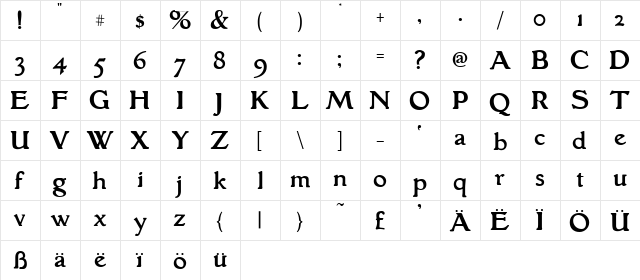
Grantham Roman
Design Context for Grantham Typeface
Grantham offers clean, dependable letterforms without strong stylistic allegiance, making it a practical choice for designers who need flexibility.